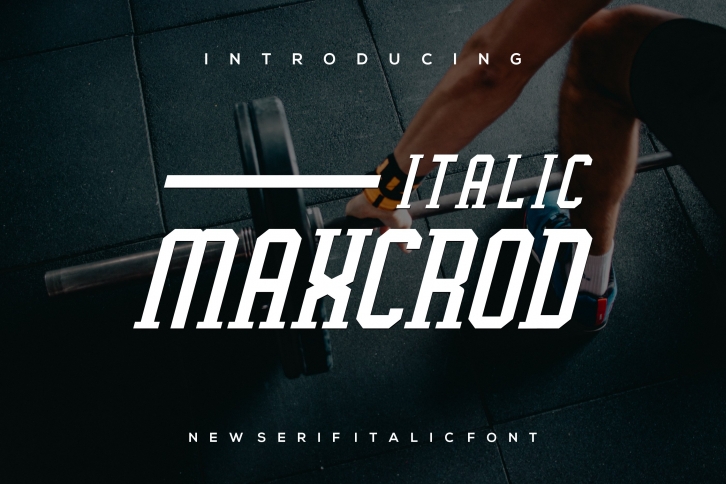
ItalicMaxcrod-Italic is a gorgeous font that was realeased on September 29, 2022. The font can be used in many style contexts and design environments. Perfect for invitations, magazines, websites, logos, and more! It was designed by logologo and the file size is 11.86 MB. Thanks for checking out this font!